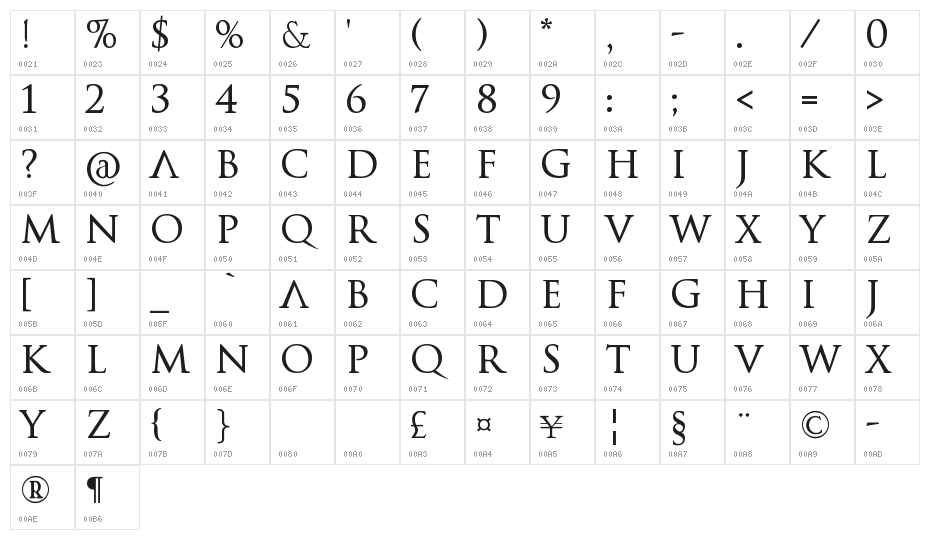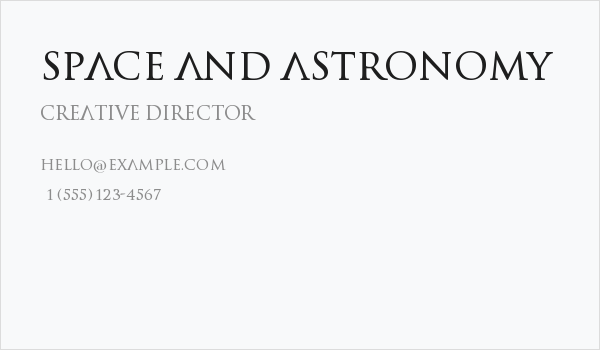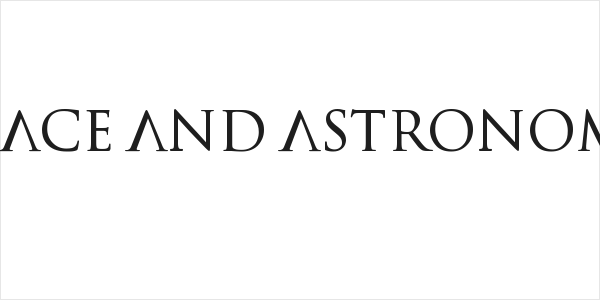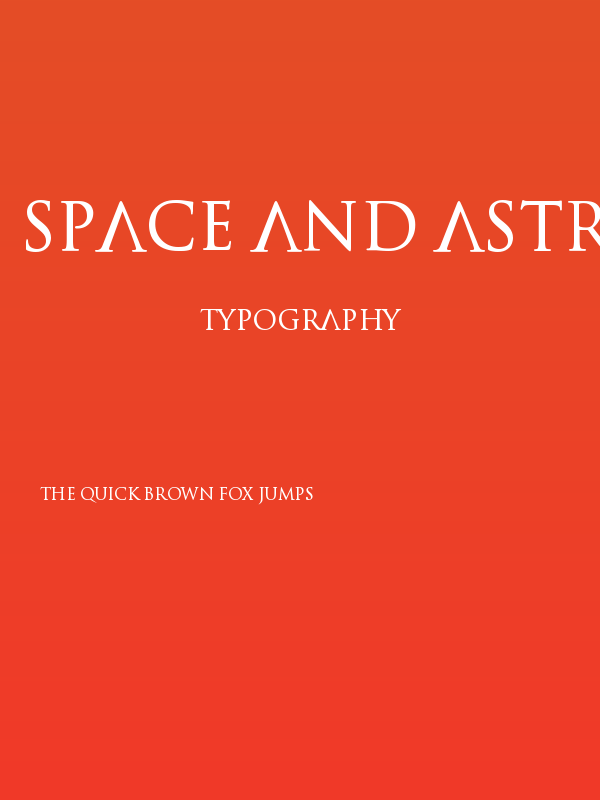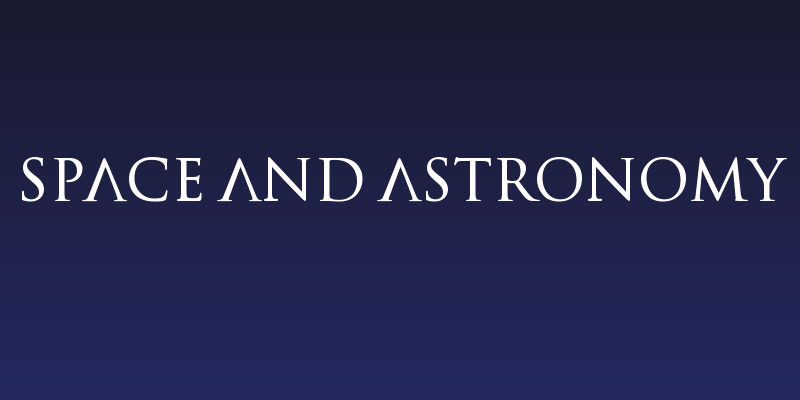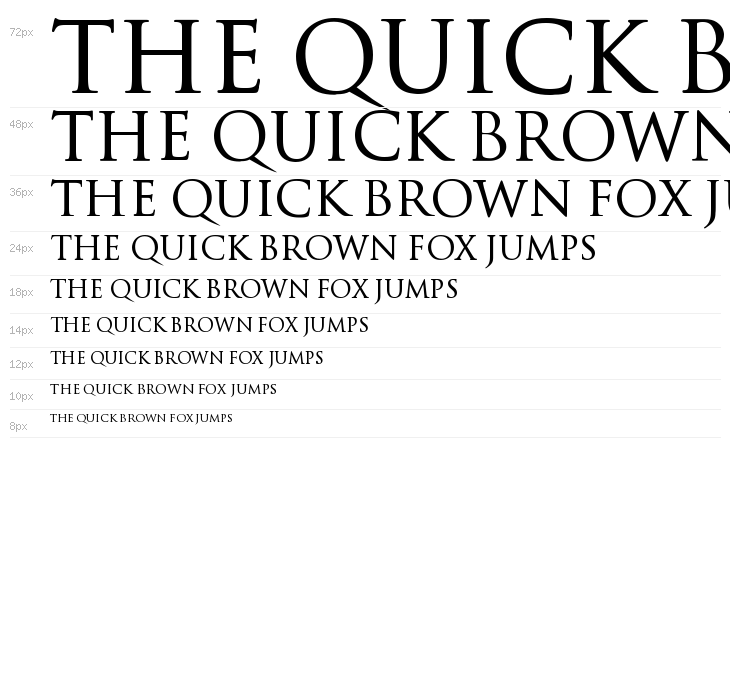
Space and Astronomy Font
Space and Astronomy Description
This font features a classic serif style with elegant, tapered strokes and a refined appearance. The uppercase letters are distinct with sharp serifs and a slightly condensed form, giving them a sophisticated and timeless look. The lowercase letters maintain a consistent style, with smooth curves and balanced proportions. Numbers are clear and legible, with a traditional design that complements the overall aesthetic. Special characters are well-integrated, maintaining the font's cohesive style. This font is ideal for projects that require a touch of elegance and formality.
| Proposed Projects | Ideal for book covers, formal invitations, branding, and editorial design. |